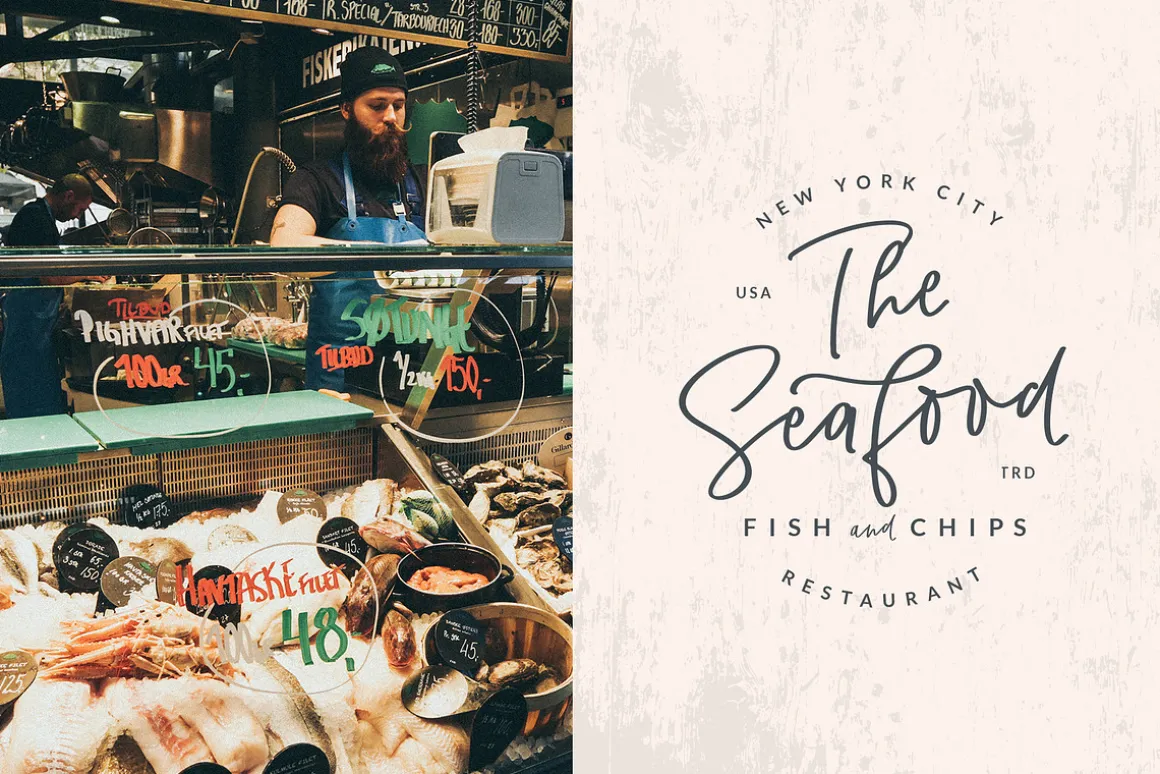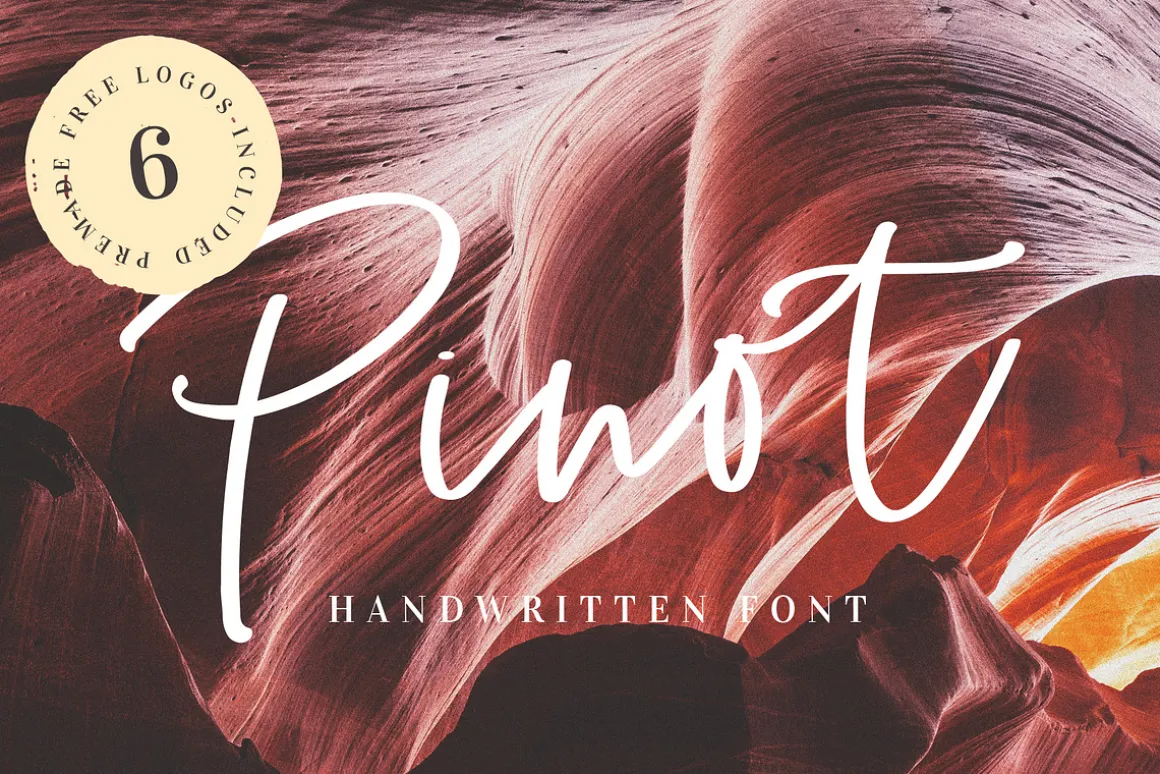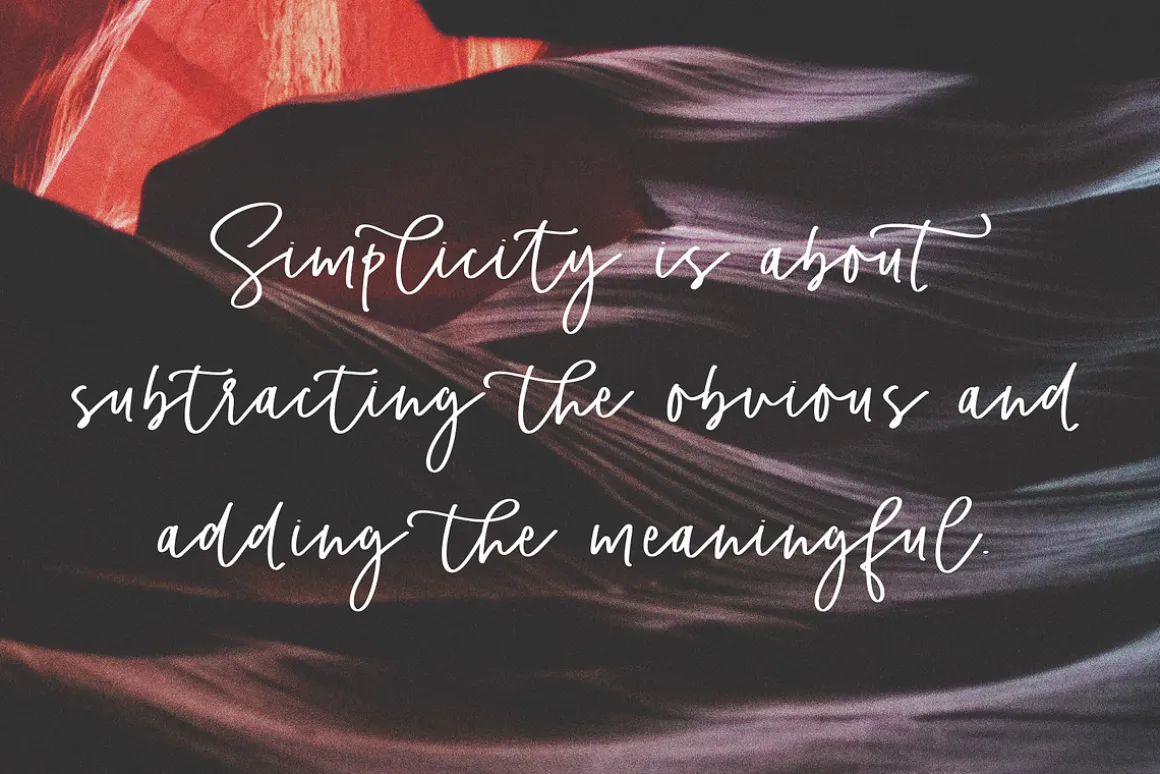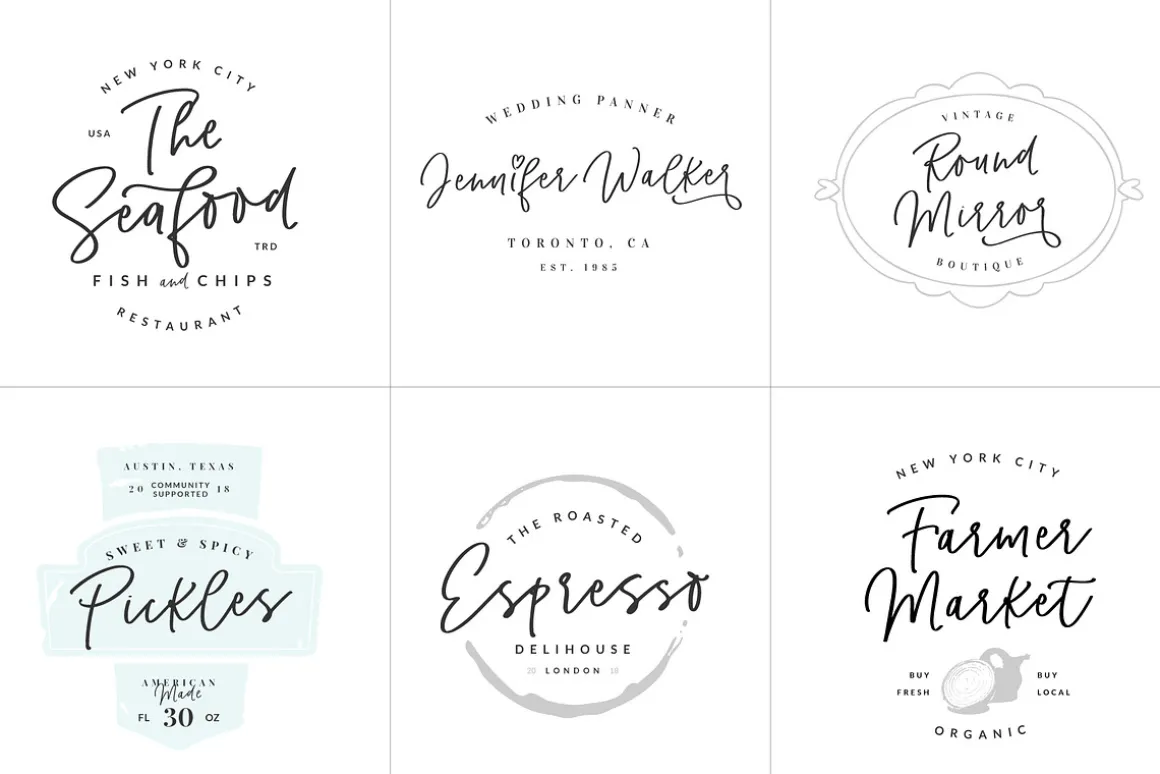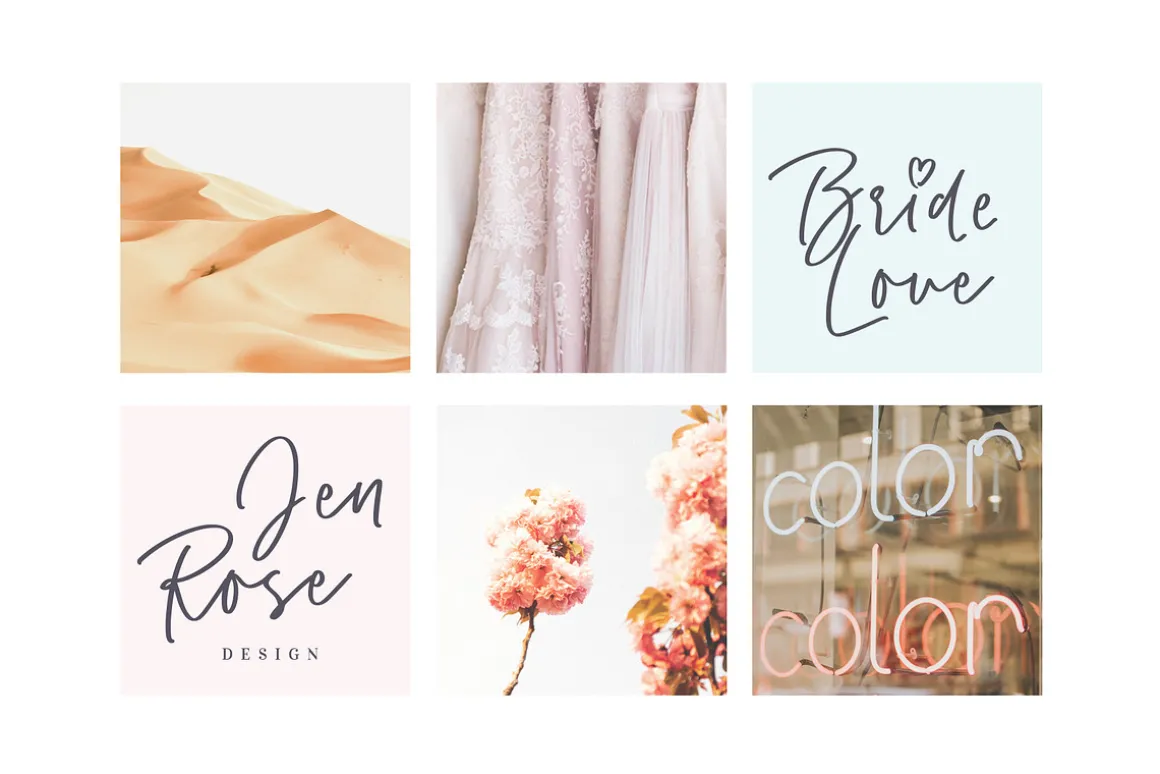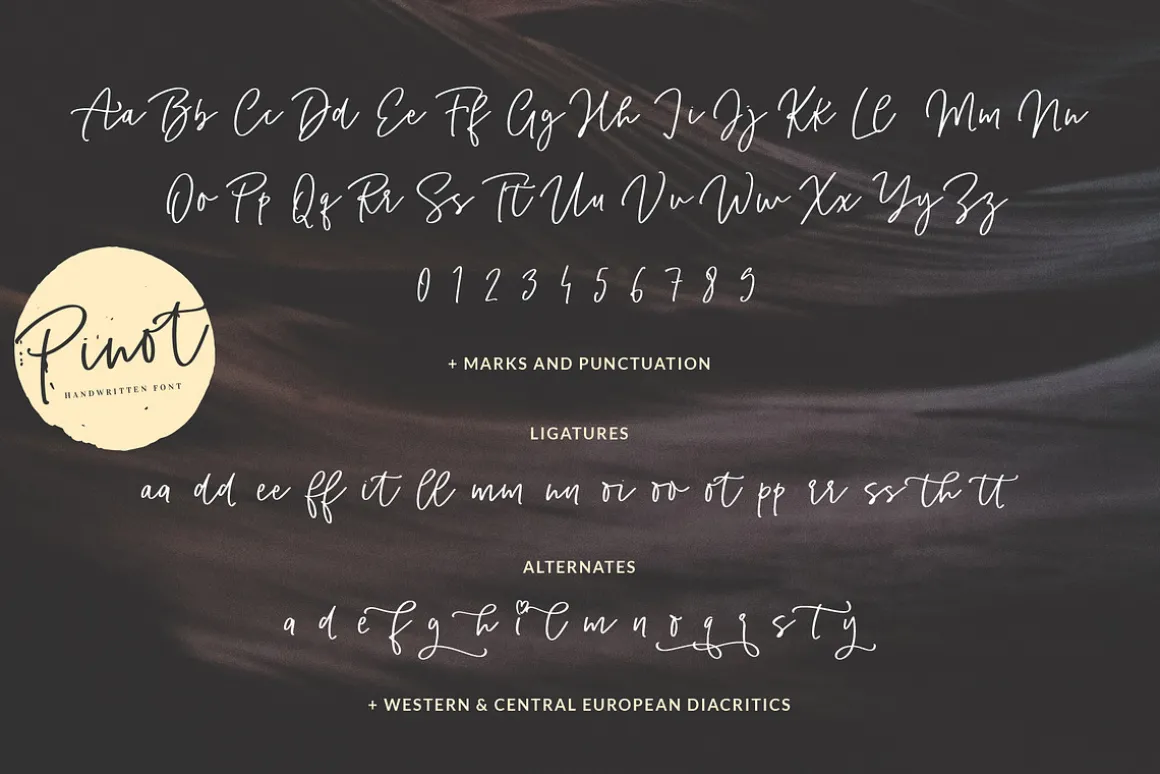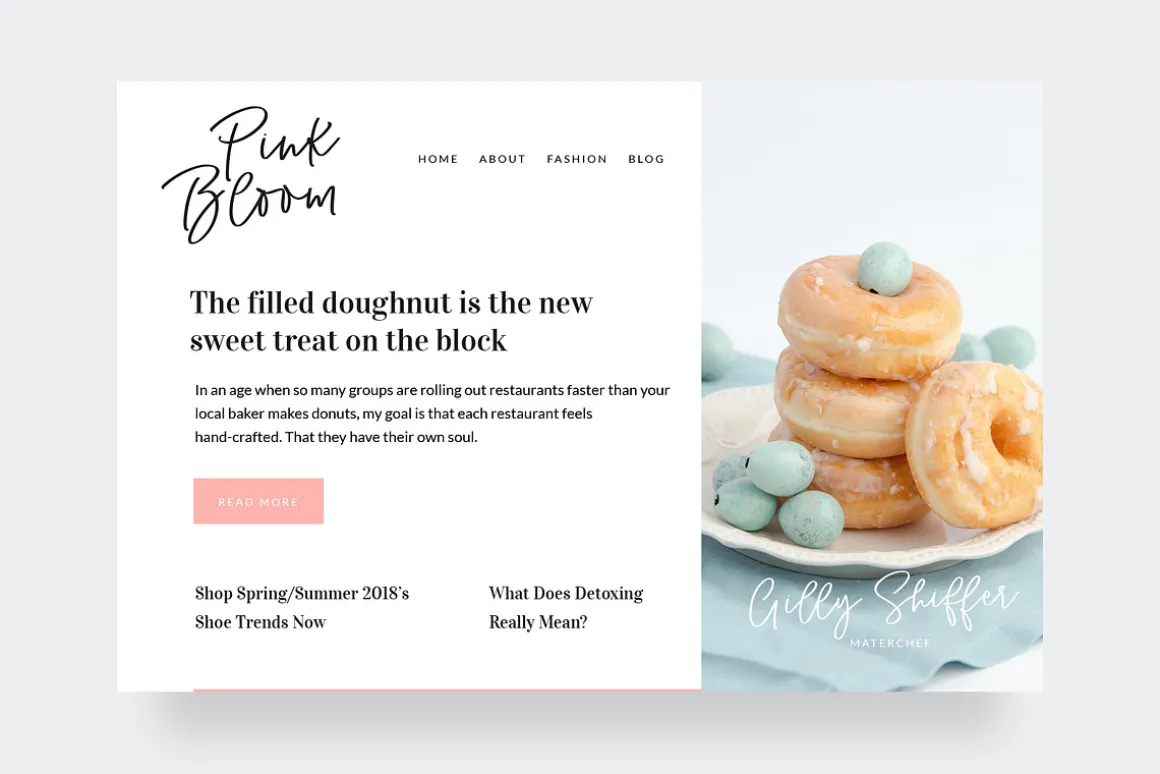
Pinot is a unique, cool and modern handwritten font. It’s hand look style makes it perfect for use in all your design projects be it logos, signatures, labels, packaging design, blog headlines. Using Pinot will definitely make your text stand out.
Diacritics, Ligatures and Alternates:
Pinot comes with upper and lowercase Basic Characters, Numbers, Marks and Punctuation. Diacritics are also available for Western and Central European Languages. As a feature you have also the standard Double Letters Ligature, Special Ligatures, Alternates, Swashes and Illustrations.